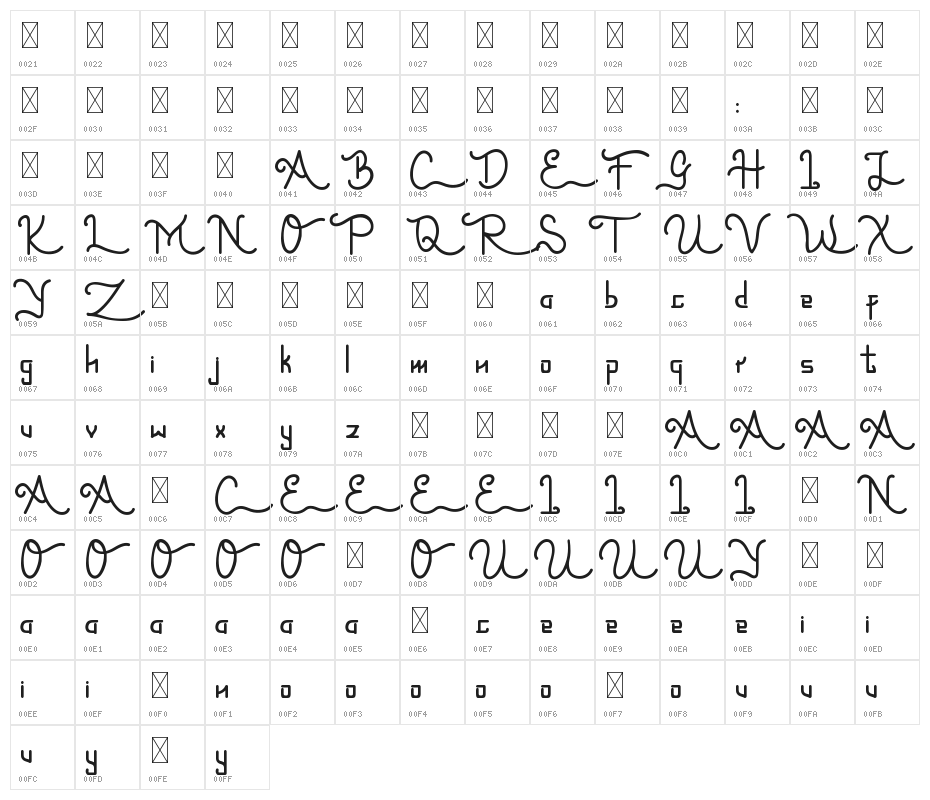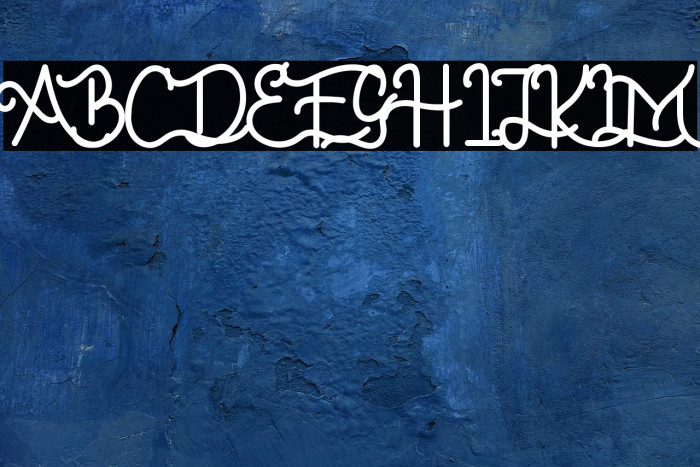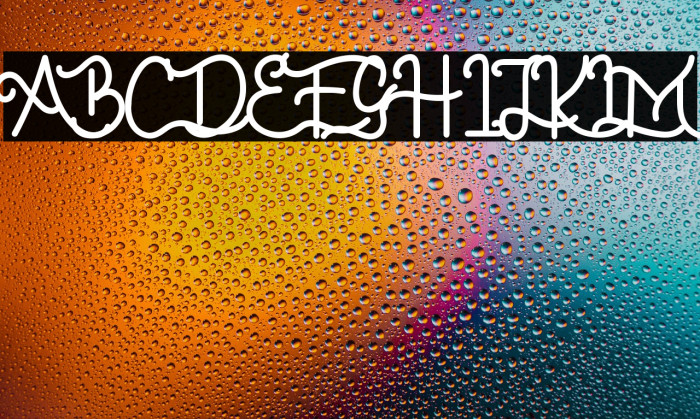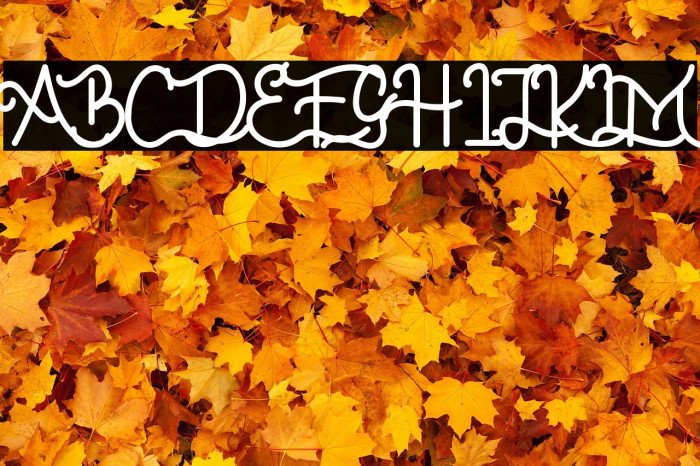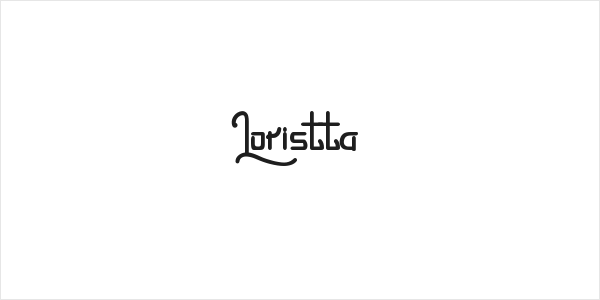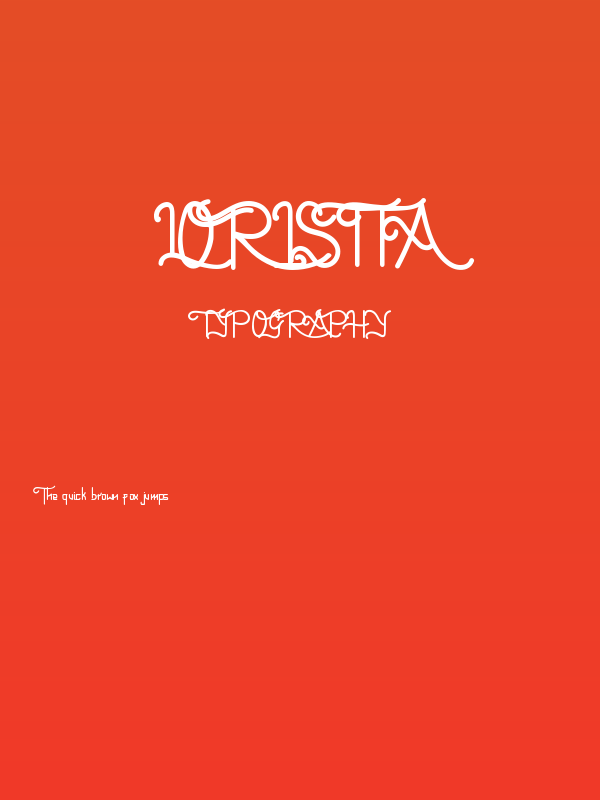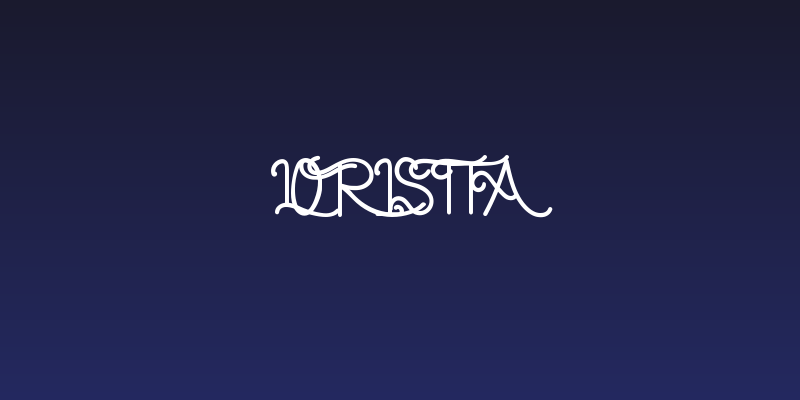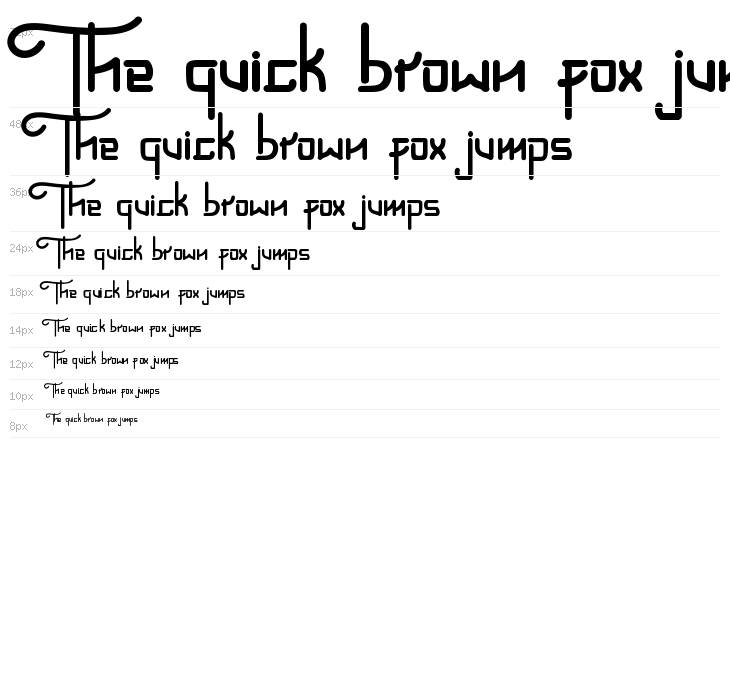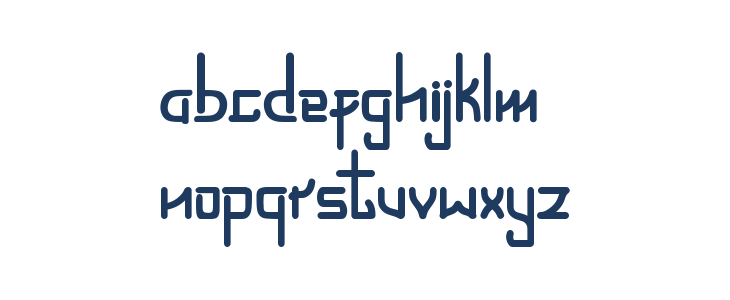
Loristta Font
Loristta Description
This font features a unique blend of decorative and modern elements, characterized by its intricate and flowing uppercase letters that resemble cursive handwriting. The lowercase letters, in contrast, are more structured and geometric, providing a striking balance between elegance and modernity. The font's special characters are represented by placeholders, suggesting a focus on the alphabetic characters. The overall design is highly stylized, making it suitable for creative and artistic projects. The font's distinctive style is ideal for making a bold statement in design work.
| Proposed Projects | Ideal for artistic projects, branding, invitations, and creative design work. |